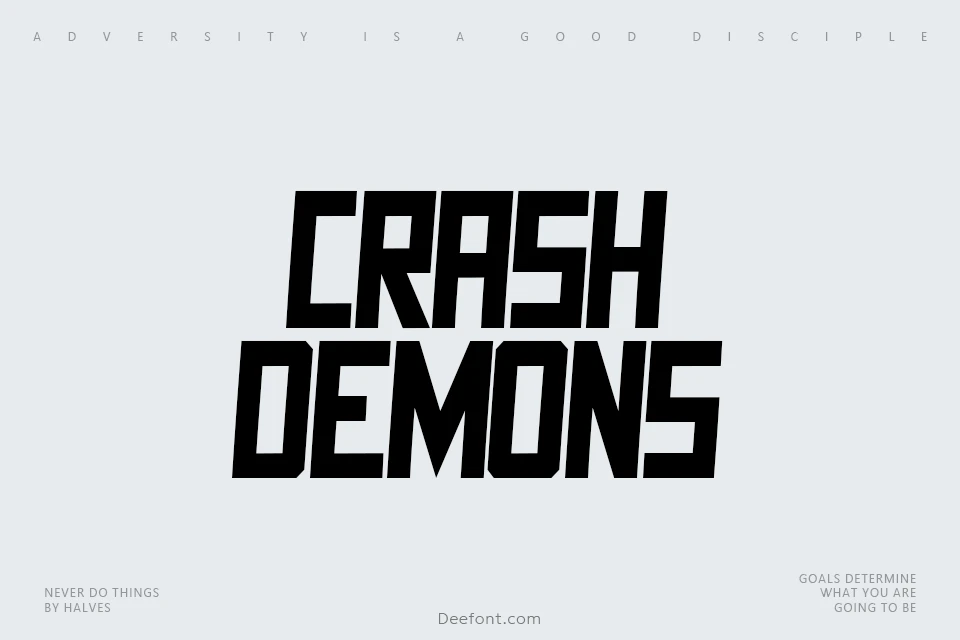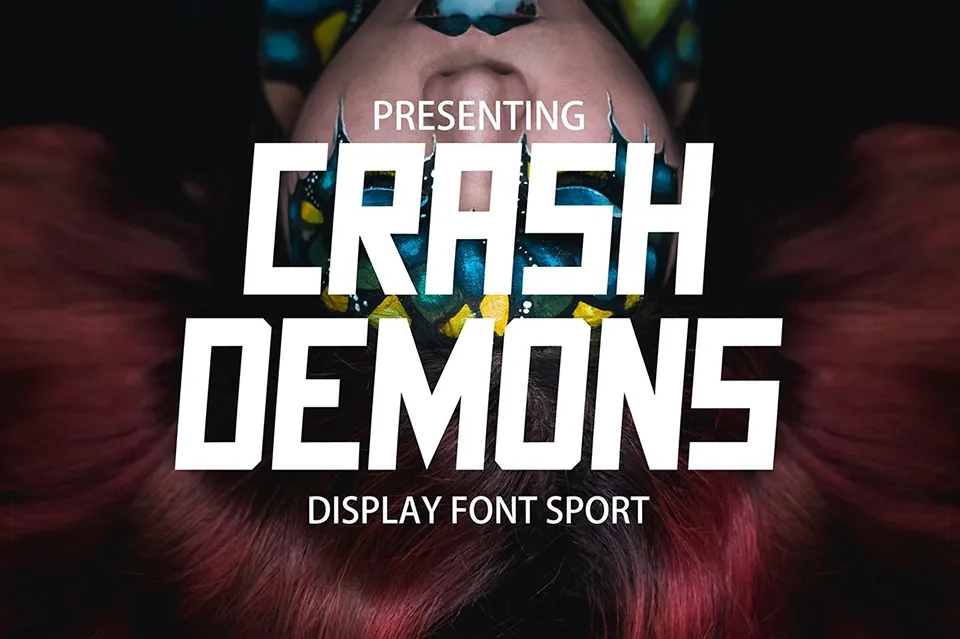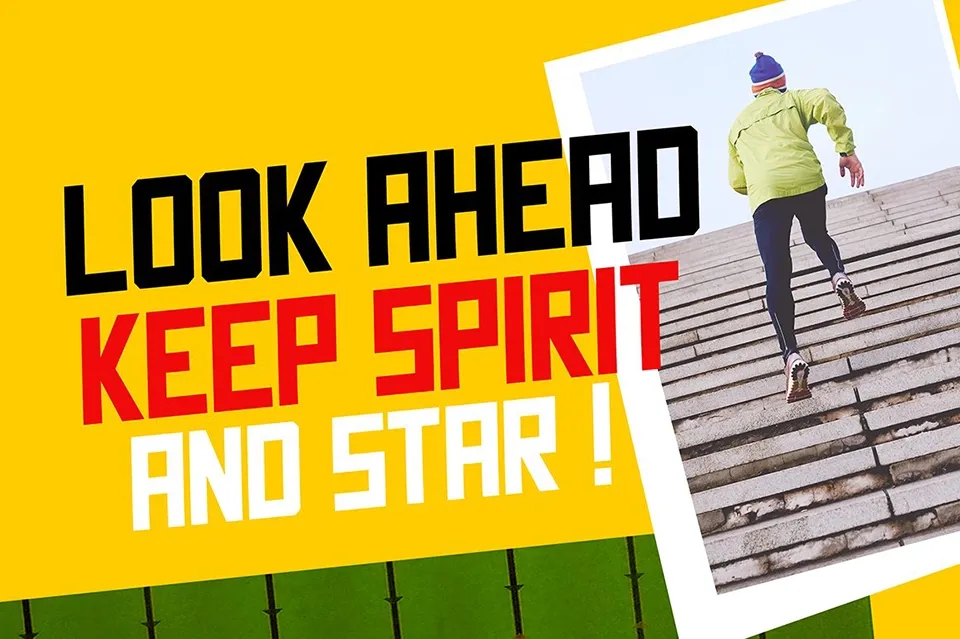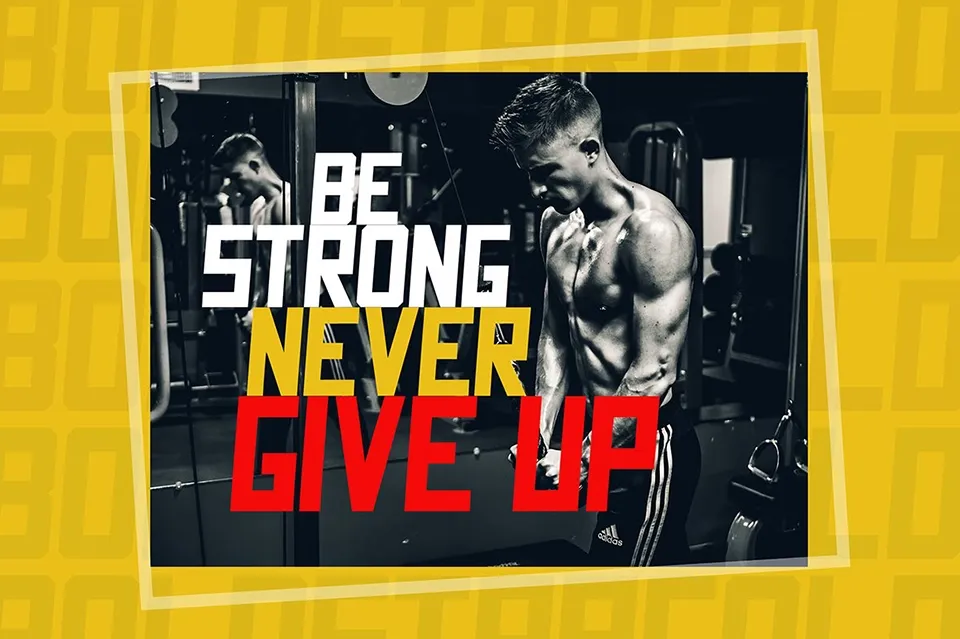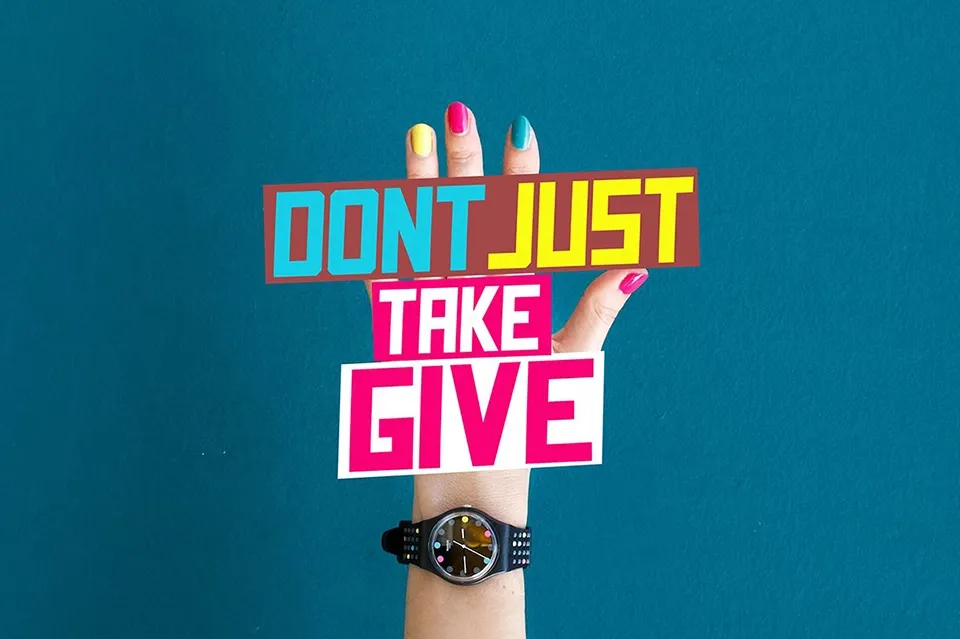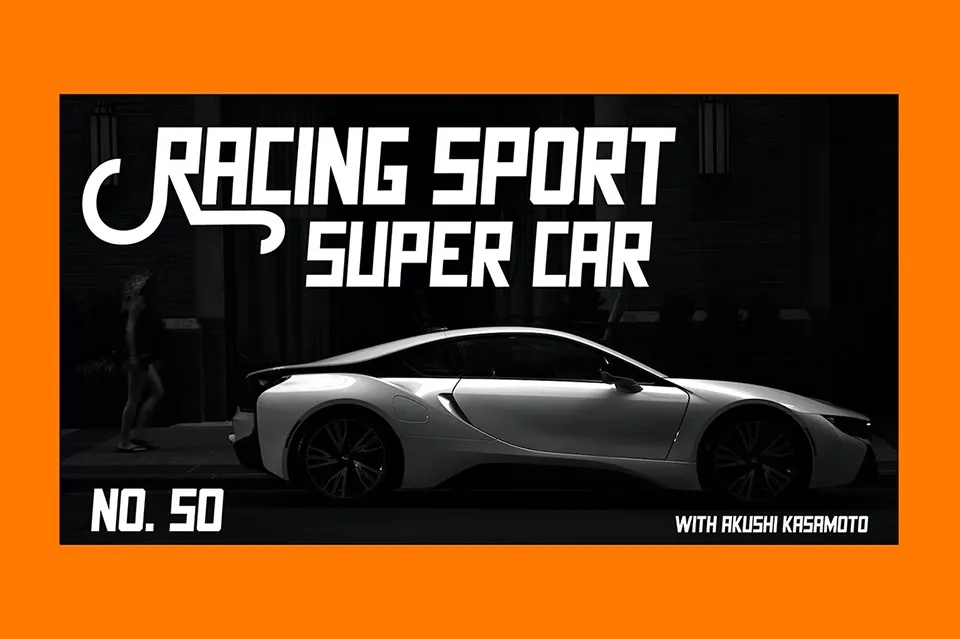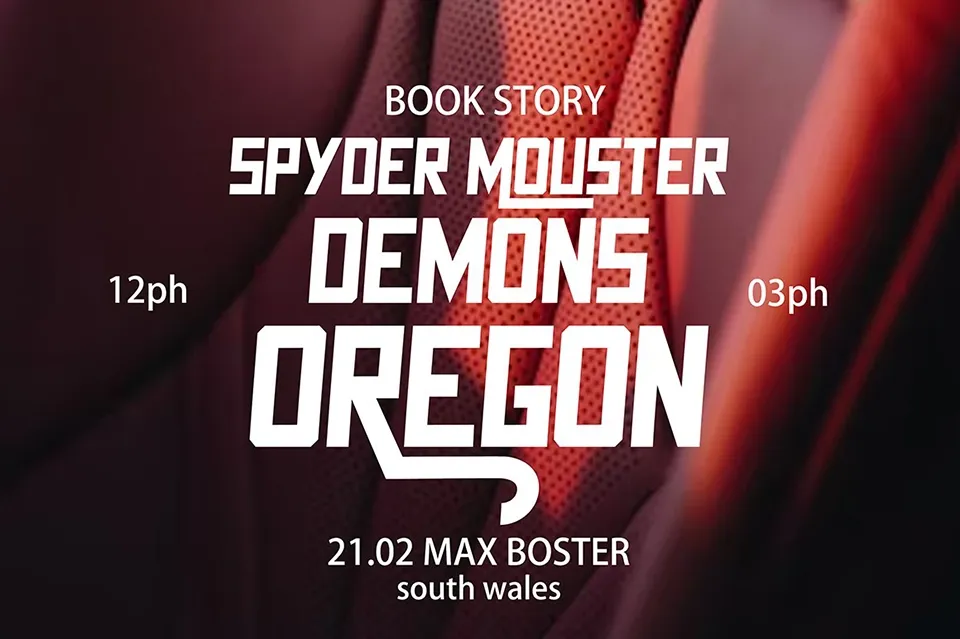
Crash Demons Font
Crash Demons Font is a powerful and bold display typeface designed for high impact. This all-caps font features strong, blocky letterforms with a distinct, sporty aesthetic, making it perfect for grabbing attention. Ideal for headlines, sports branding, posters, logos, and automotive themes, Crash Demons delivers an energetic and modern feel. Its solid construction and sharp angles convey speed and strength. Use this font to make a confident statement and bring a dynamic edge to your designs that demand to be noticed.